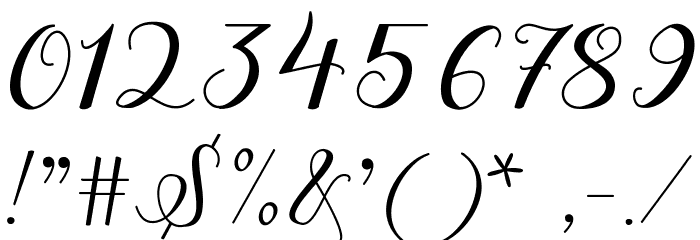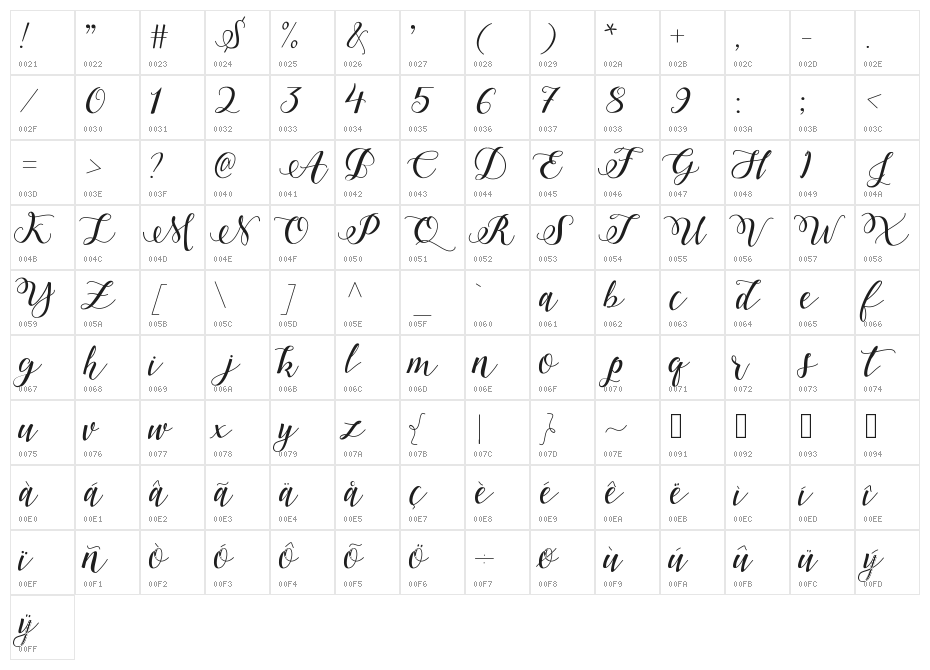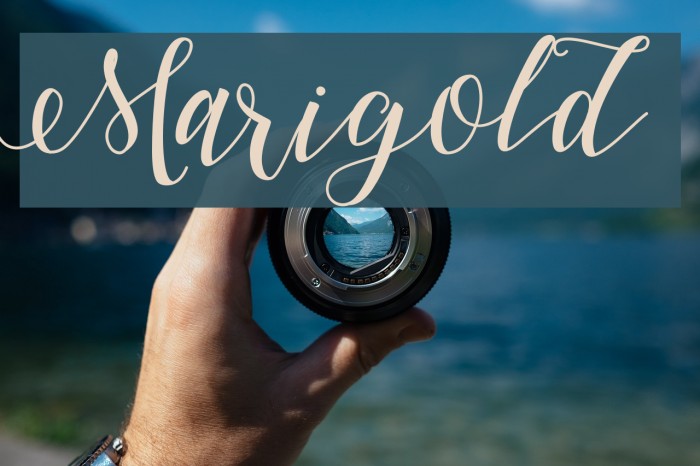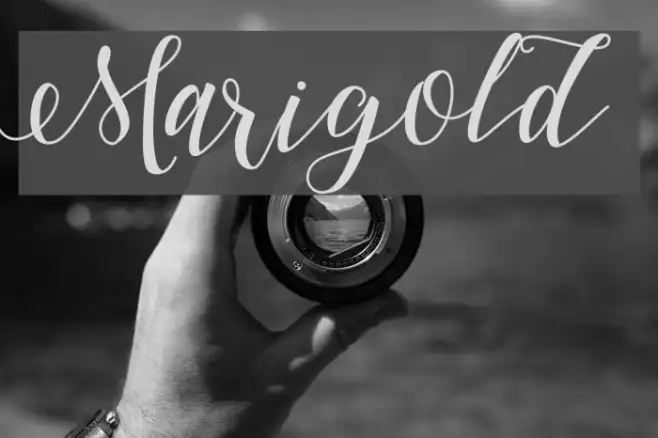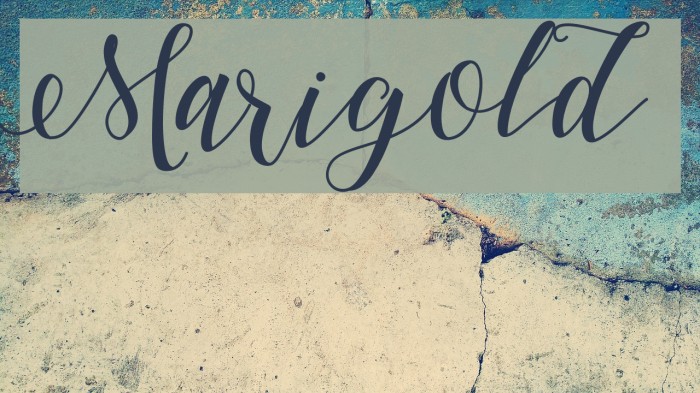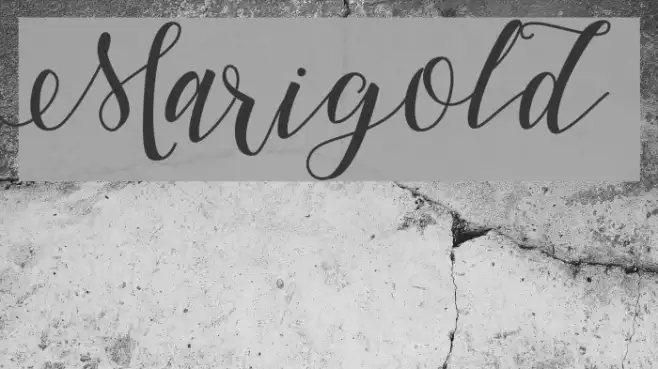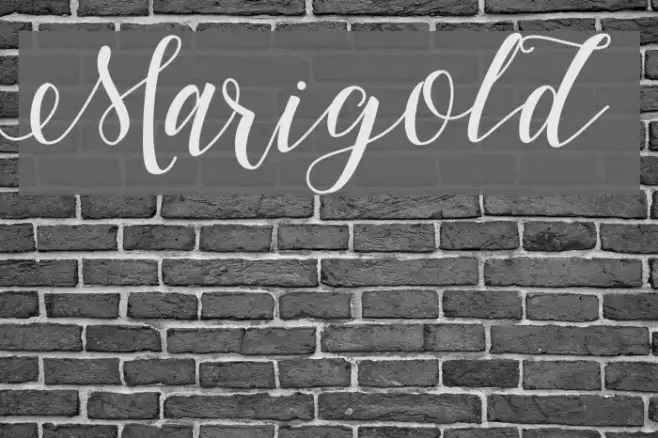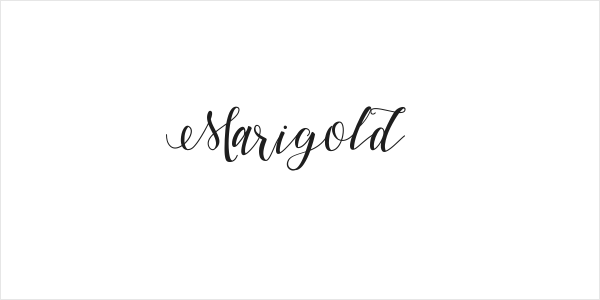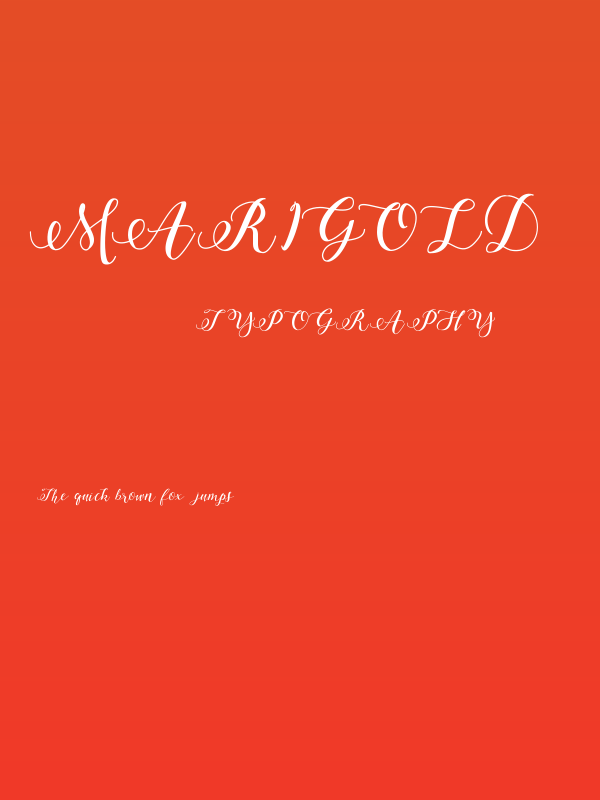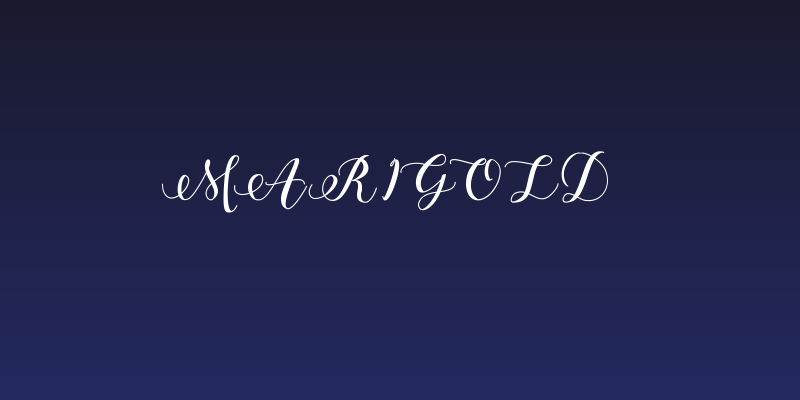
Marigold Font
Marigold Description
This elegant script font features flowing, interconnected letters with a graceful and sophisticated appearance. The uppercase letters are adorned with delicate swashes, adding a touch of flair and refinement. The lowercase letters maintain a smooth and fluid style, enhancing readability while preserving the font's artistic charm. The numerals are stylishly curved, complementing the overall aesthetic. Special characters are thoughtfully designed to match the font's elegant theme, making it suitable for a variety of creative applications. The font's intricate details and smooth curves make it ideal for projects that require a touch of elegance and sophistication.
| Overall Style | Elegant, Sophisticated |
| Proposed Projects | Wedding invitations, luxury branding, greeting cards, and elegant signage. |